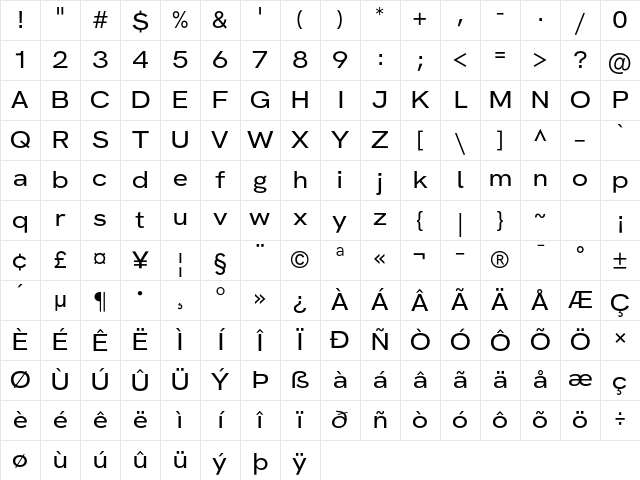
Complete HK Grotesk Wide Regular glyph index. Displaying only characters natively supported by HK Grotesk Wide Regular font.
HK Grotesk Wide takes a clean, functional approach - its unadorned letterforms prioritise legibility and work reliably across screen and print environments.
Font Pairing: Works well alongside a characterful serif or display font that can carry the expressive load while HK Grotesk Wide handles the functional copy.
Pro Tip: Use HK Grotesk Wide for UI labels, navigation, and short-form body copy where clean legibility is the priority.